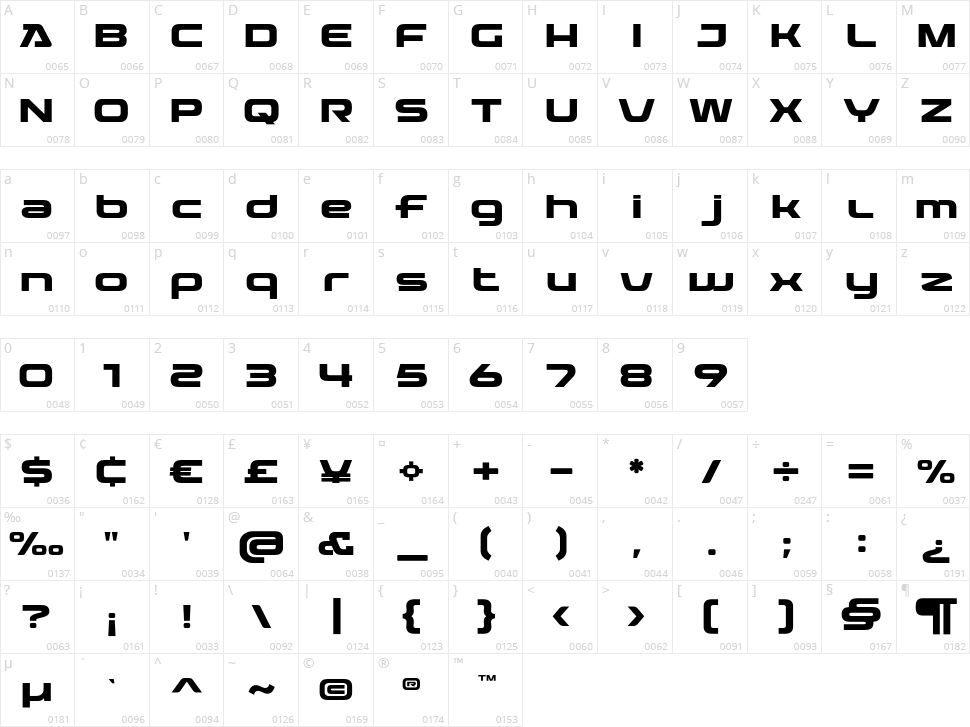
Cravend
Note of the author A modern and stylish typeface that is perfect for digital and techno-inspired designs. It is characterized by its wide and bold letterforms that give it a strong and powerful presence.